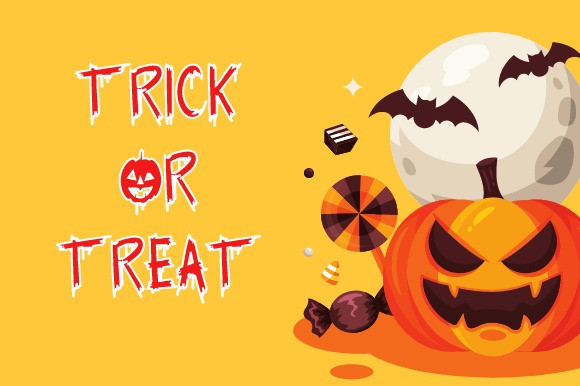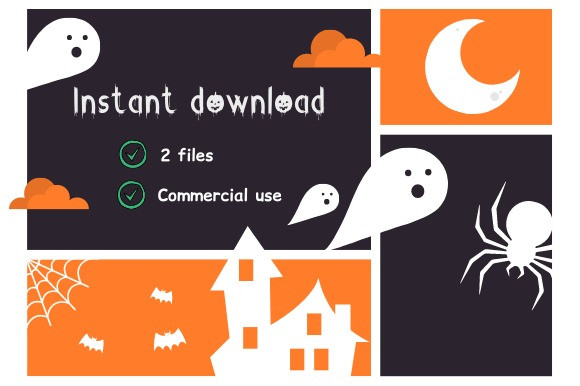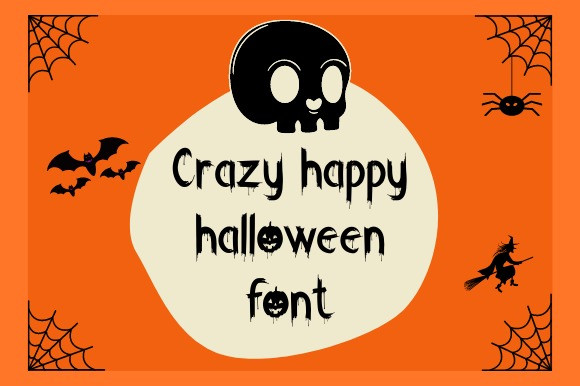
Crazy Happy Halloween Font
Crazy Happy Halloween Font is a cool, fun and friendly decorative font. Add it to each of your October design ideas and make your creations look out of this world.